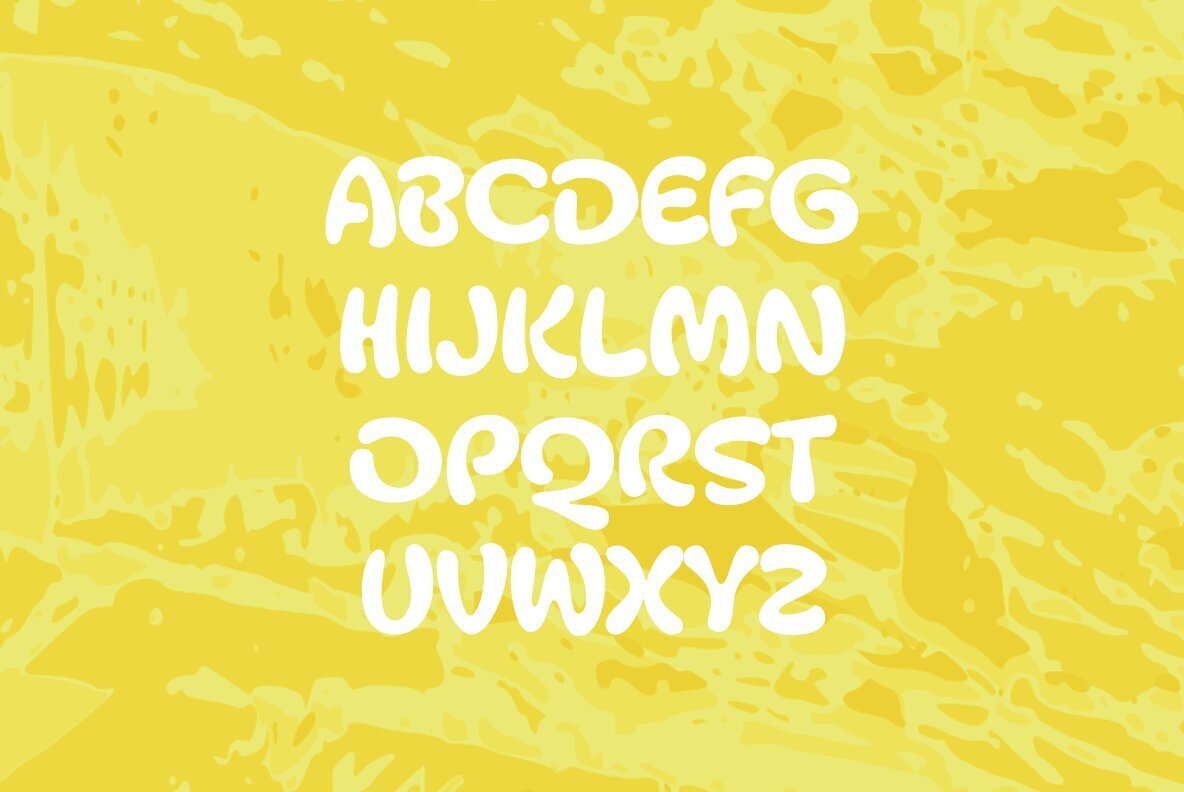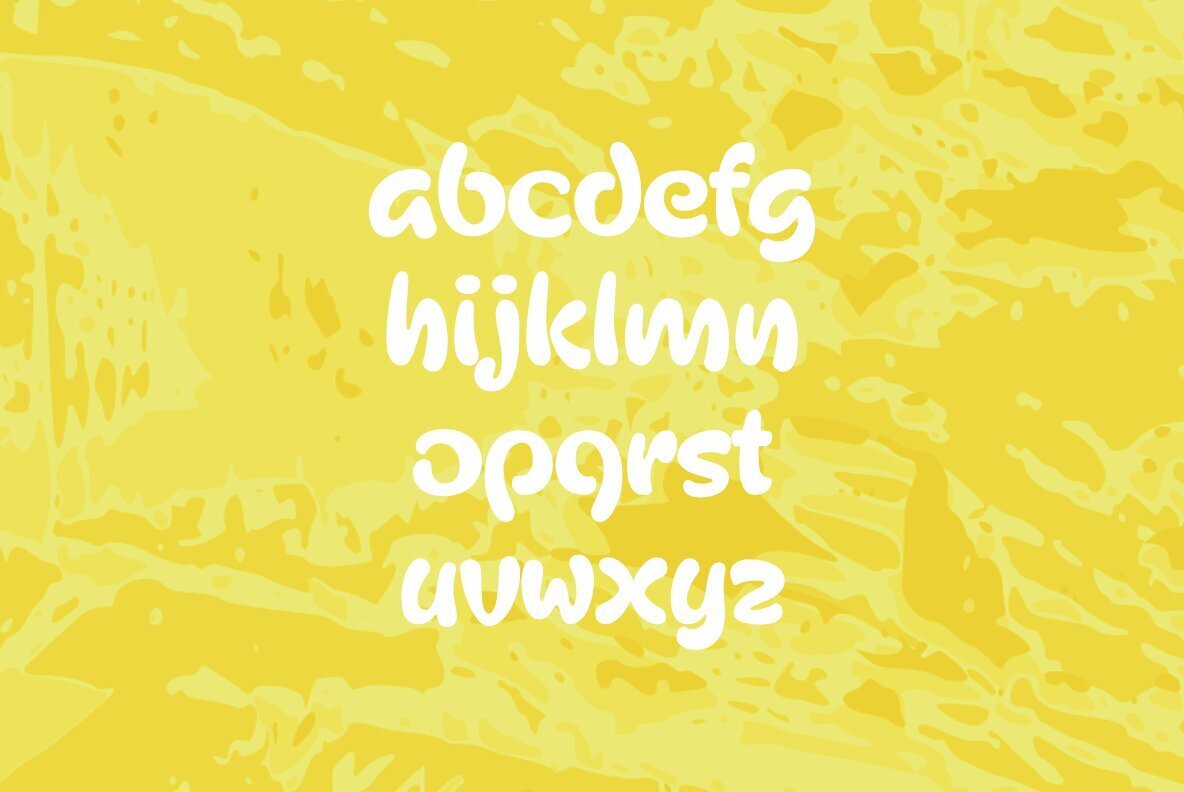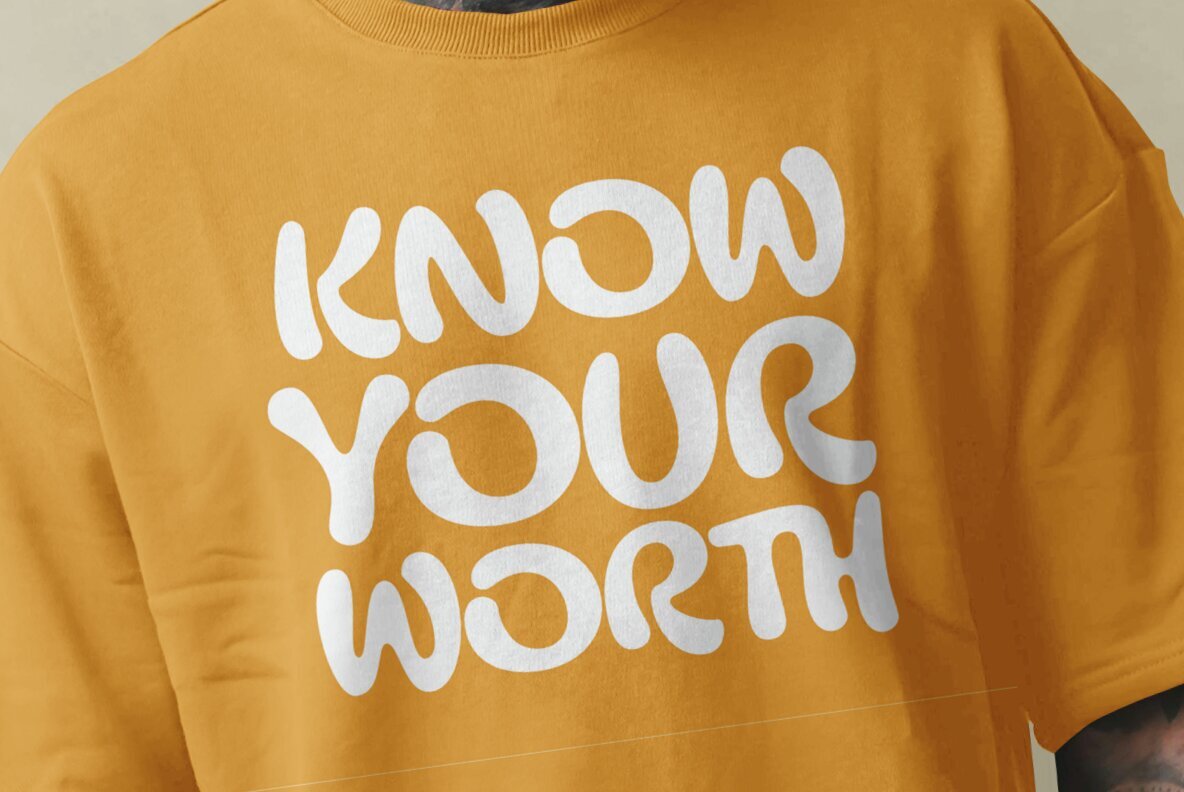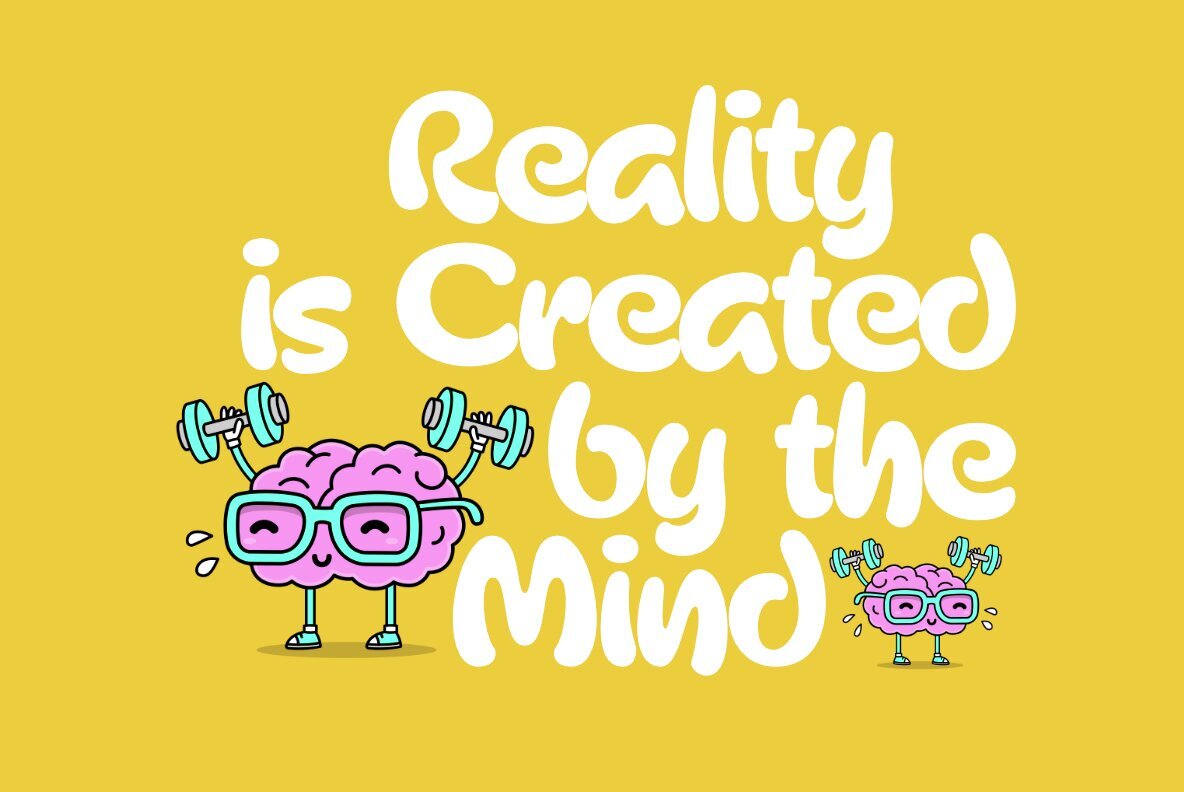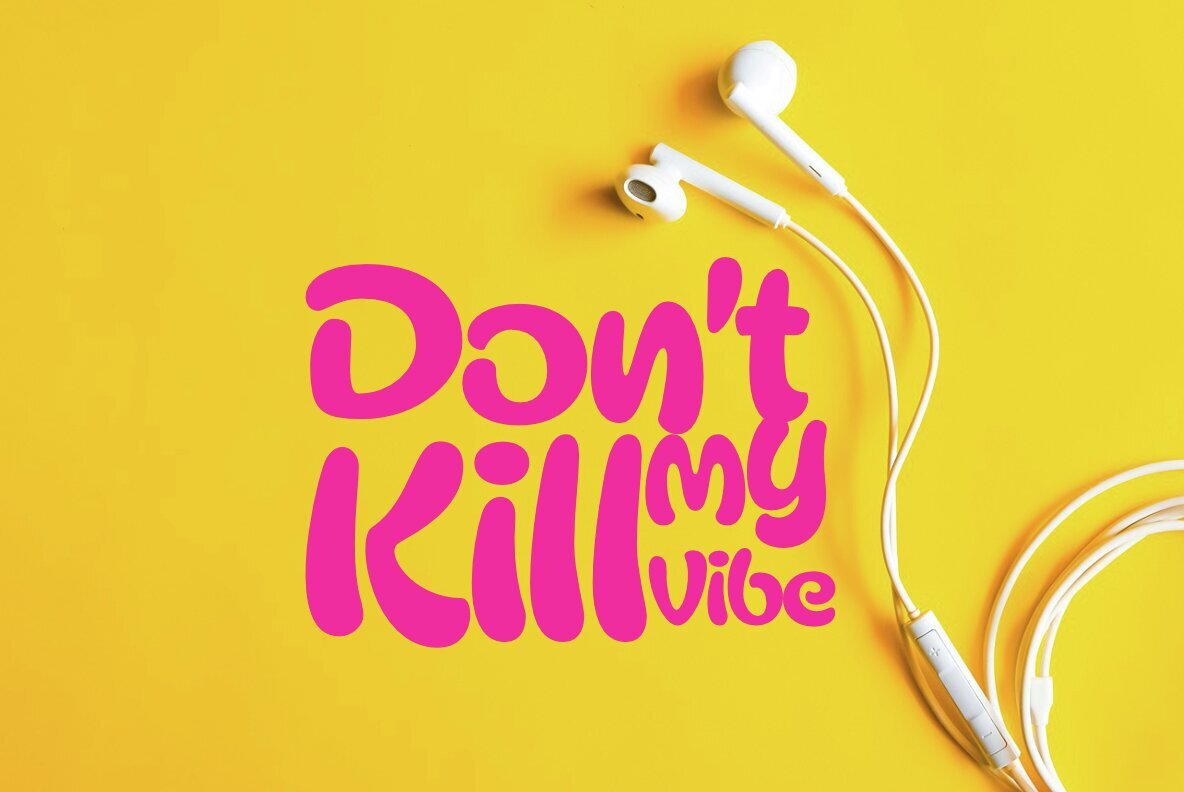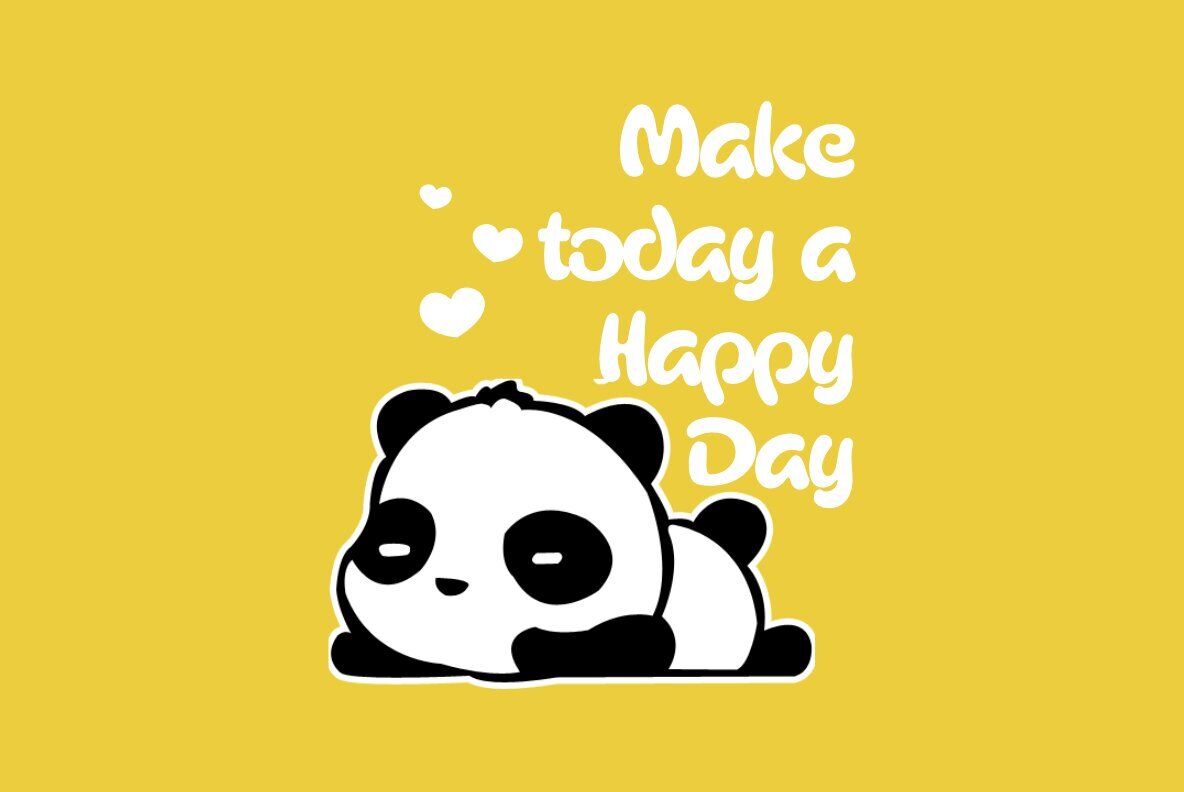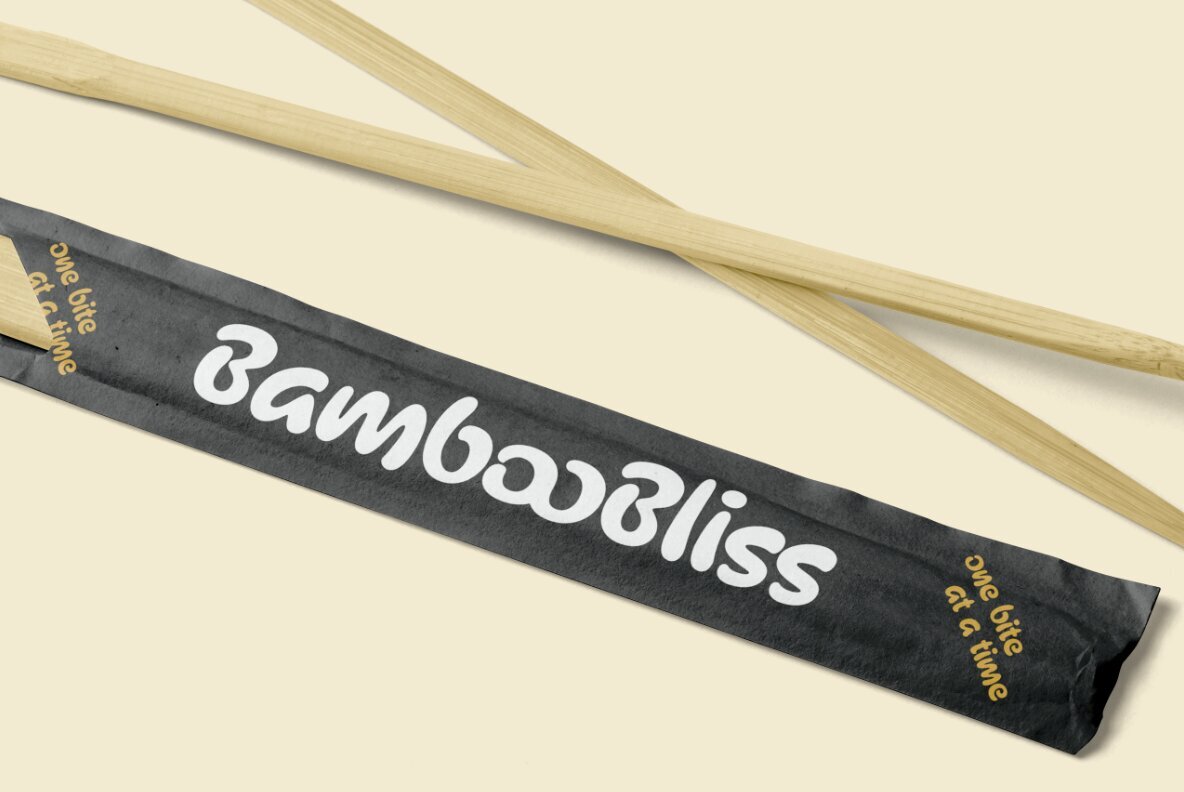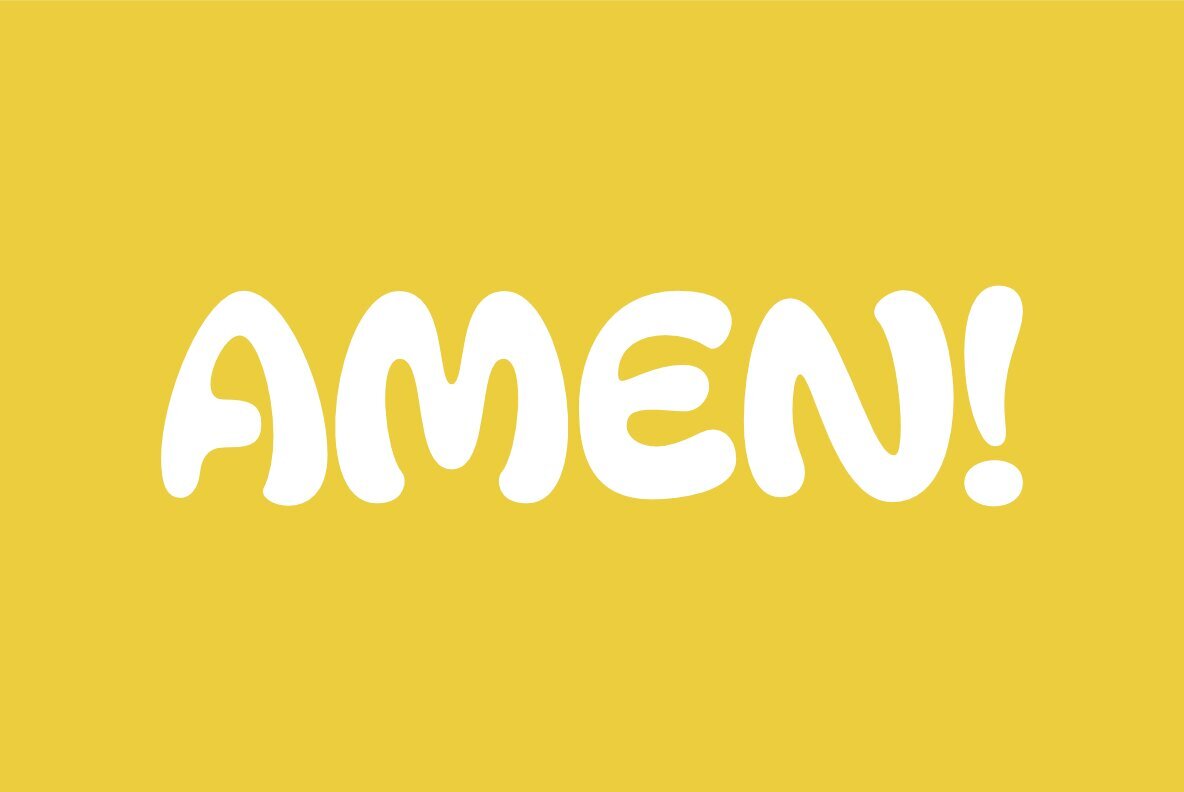
Rombong Font
Rombong Regular
Rombong is an experimental typeface that balances fluidity with structure, characterized by its rounded edges that soften its overall appearance, giving it a friendly and approachable look. Each letter features a flowy, almost calligraphic style, imparting a sense of movement and dynamism to the text. Despite its organic curves, Rombong maintains a structured feel with a stencil-like design, where intentional disconnections between sections create a unique and visually striking effect.
The contrast between the smooth curves and precise stencil cuts makes Rombong a versatile choice for modern creative projects. Ideal for branding, packaging, and editorial design, this typeface offers a playful yet sophisticated character. Rombong's distinctive style is sure to leave a lasting impression and bring a fresh, dynamic touch to any design work.